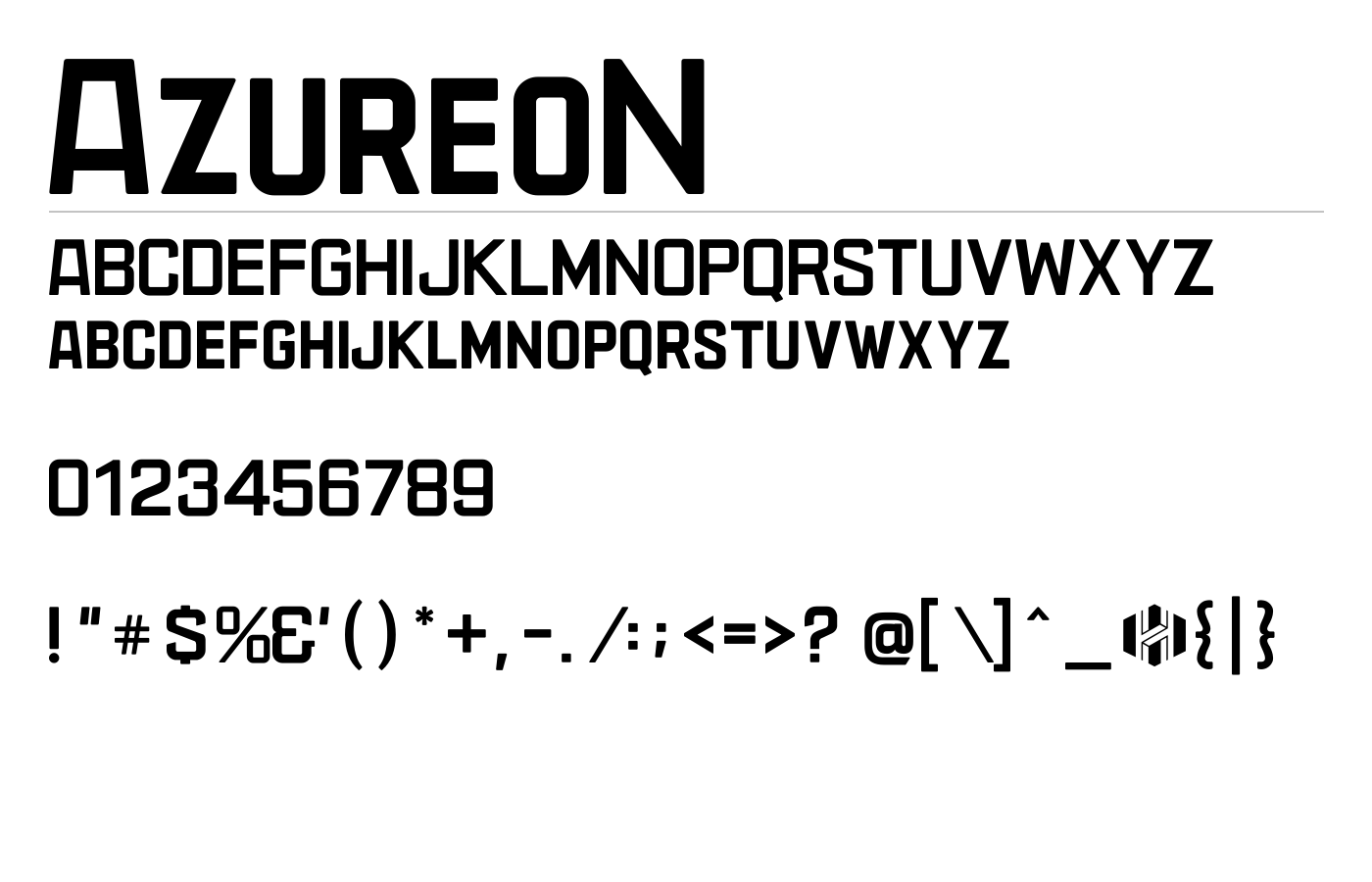
AzureoN is a bold, condensed sans serif font characterized by its modern, geometric shapes and clean, uniform stroke weight. Its strong presence and straightforward style make it ideal for contemporary branding, headlines, and any design seeking a confident and tech-savvy look. This font works well where clarity and impact are essential, such as in logos, posters, and digital interfaces.
AzureoN Font
About AzureoN Font
| Font family | AzureoN Font |
| Designer | Hareesh Seela |